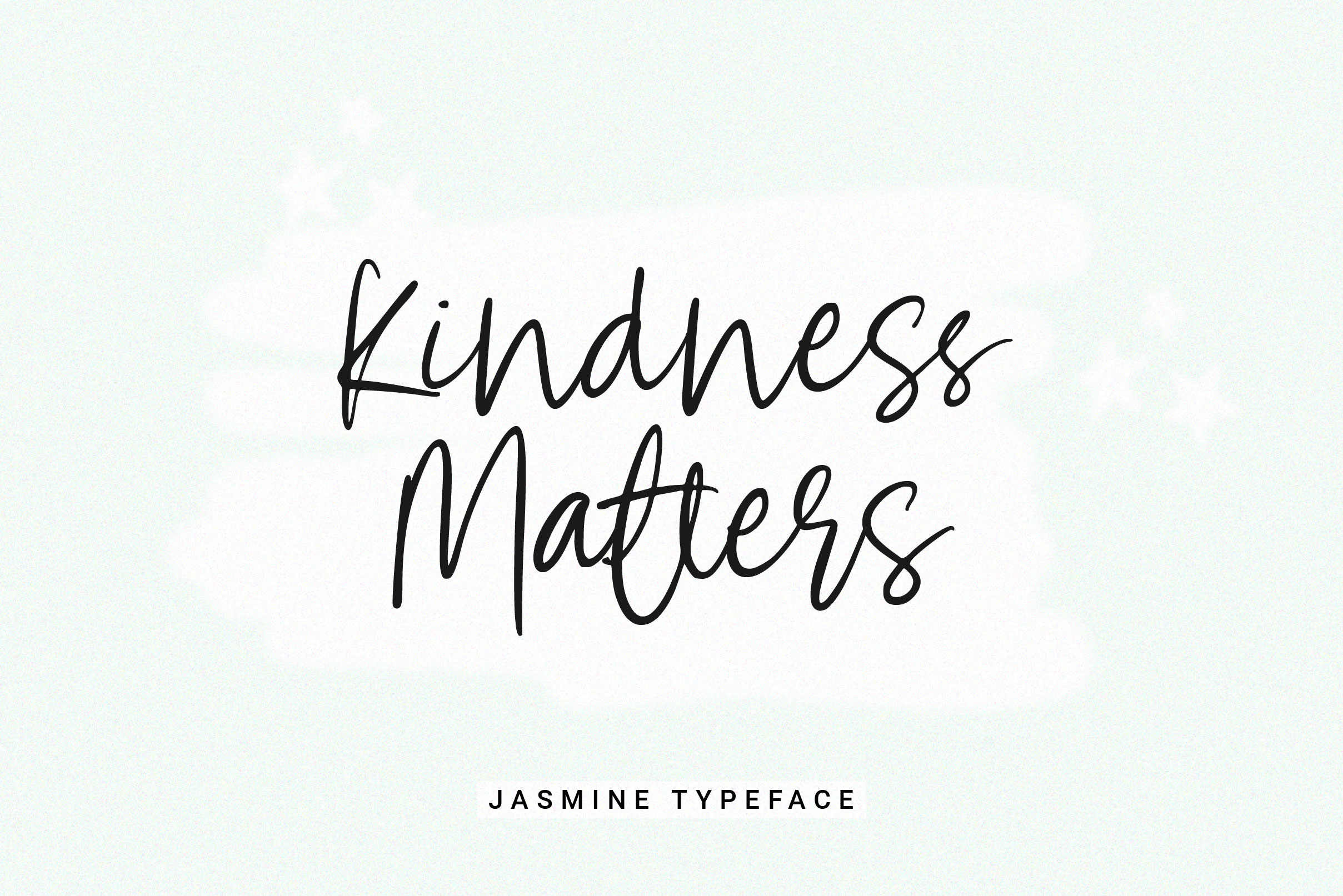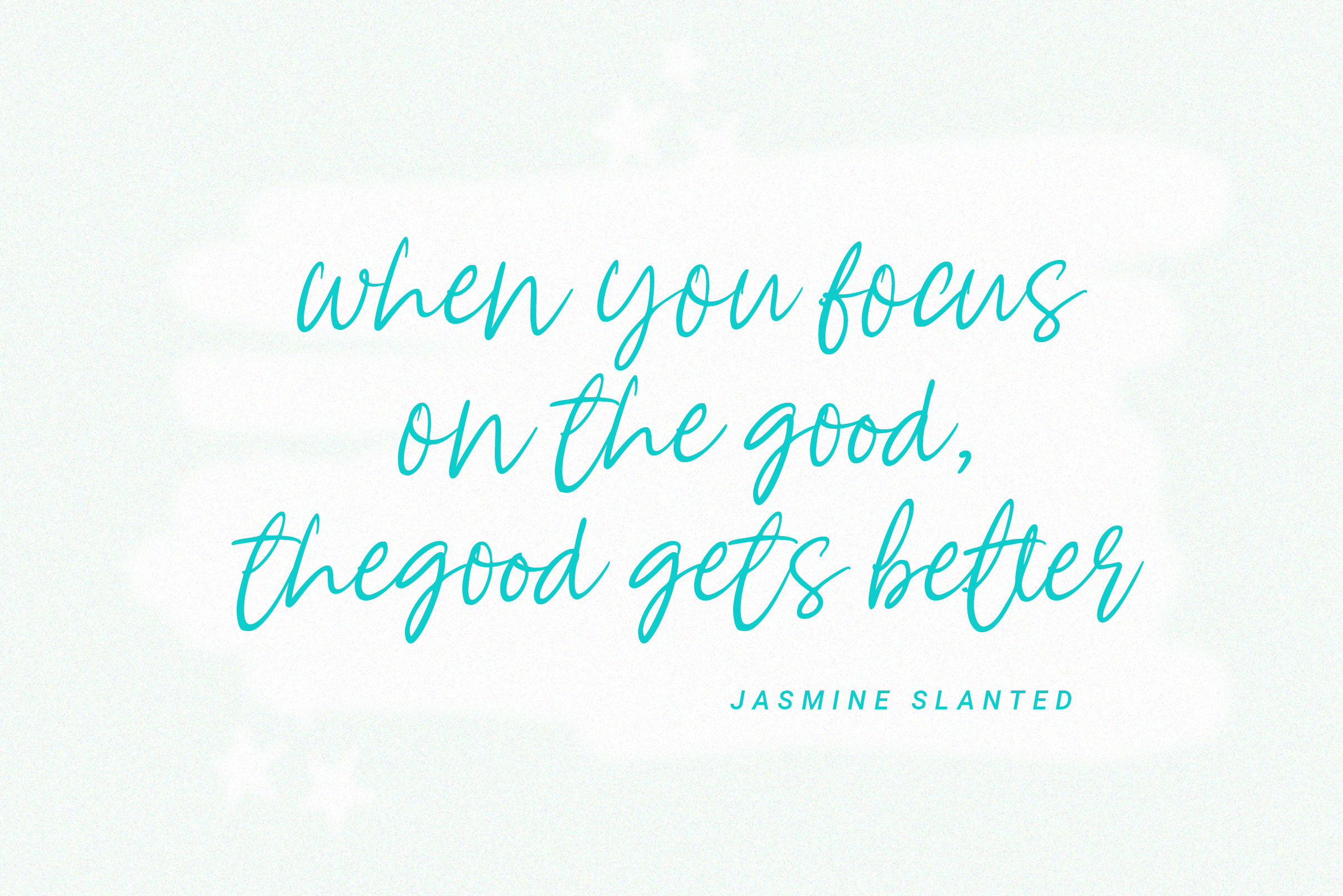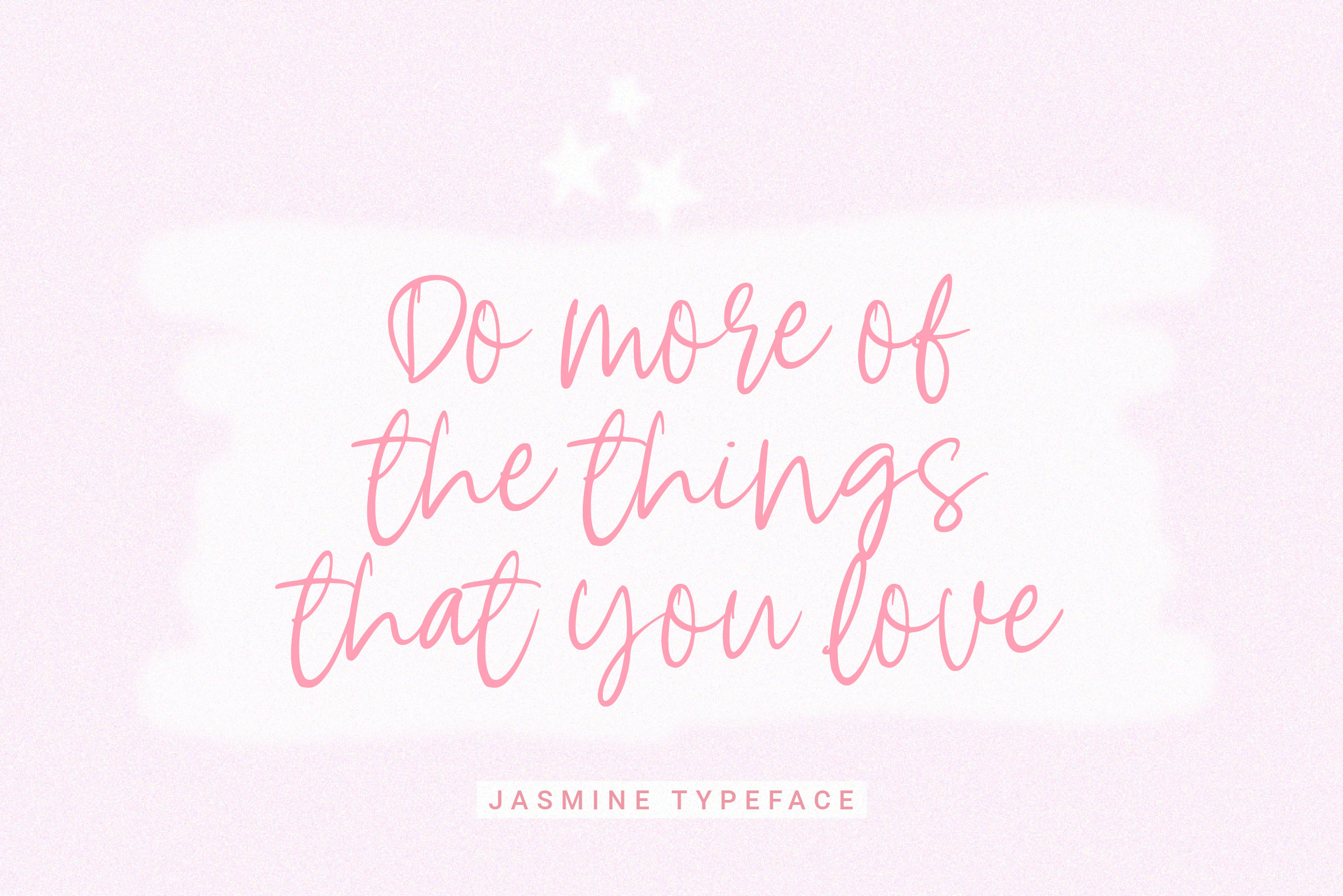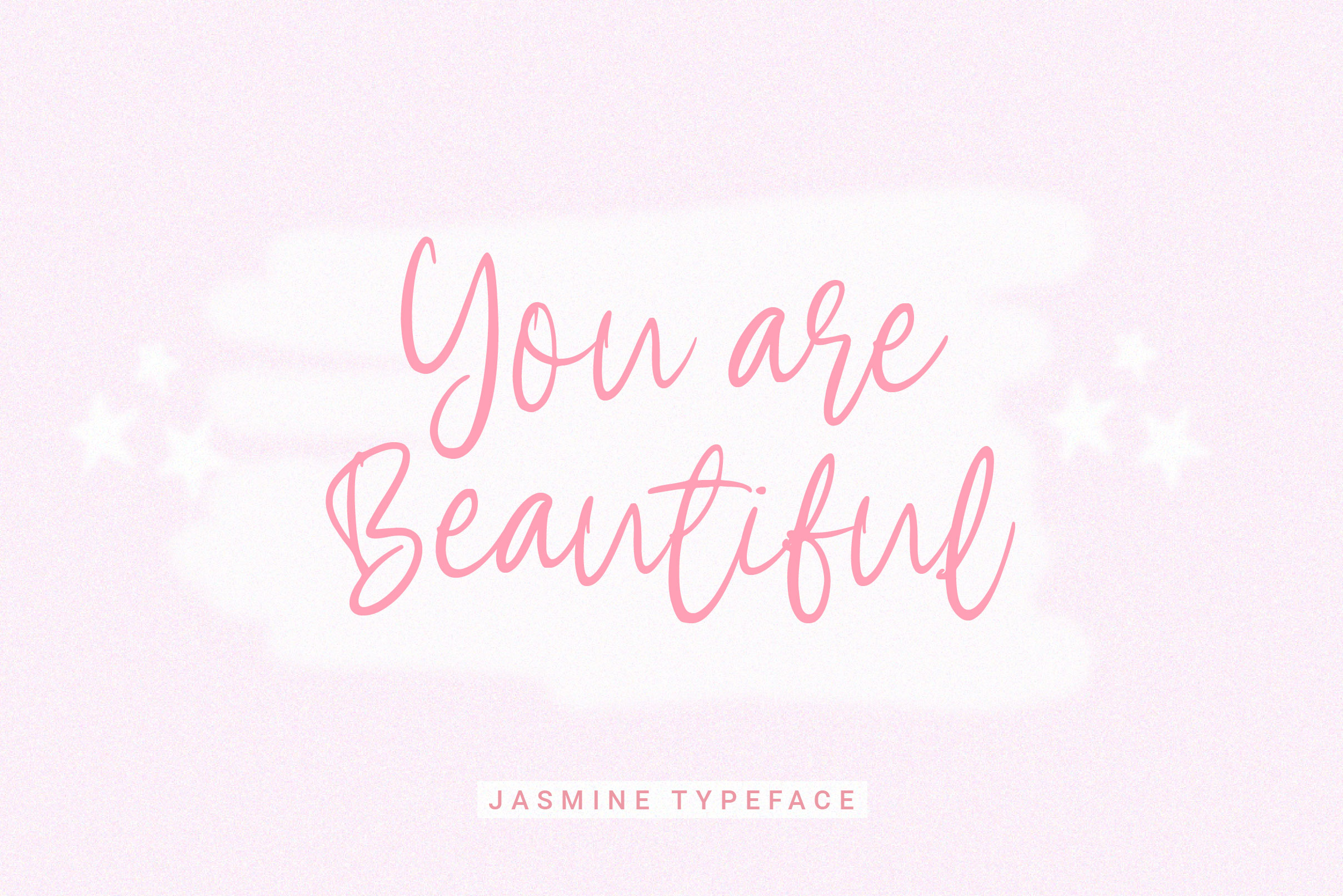
Jasmine Font
Jasmine Handwritten Font is a delicate and elegant handwritten font. Its distinct and well balanced letters make this font a masterpiece. Fall in love with its incredibly versatile style and use it to create spectacular designs!
– Uppercase, Lowercase, Numeral & Punctuation
– Alternate Letters, Ligature & Swash/Tail